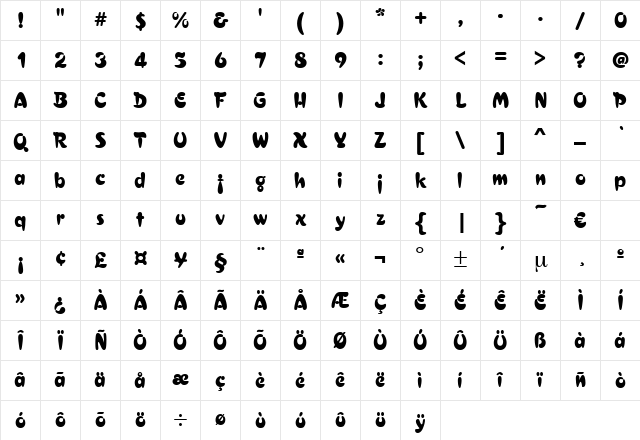
Pandero Regular Free Font
Pandero Regular
Design Context for Pandero
Pandero is a composed and adaptable typeface that performs quietly and consistently across a wide range of design contexts.